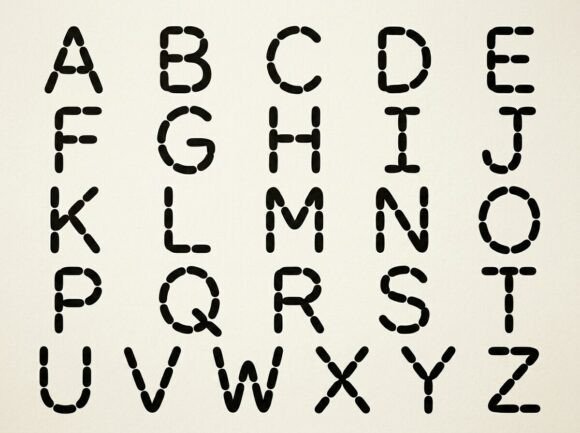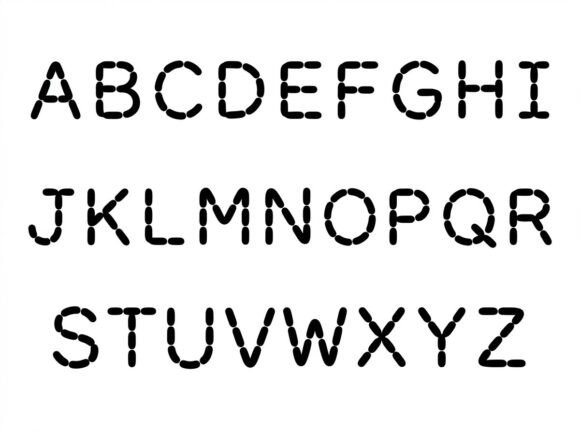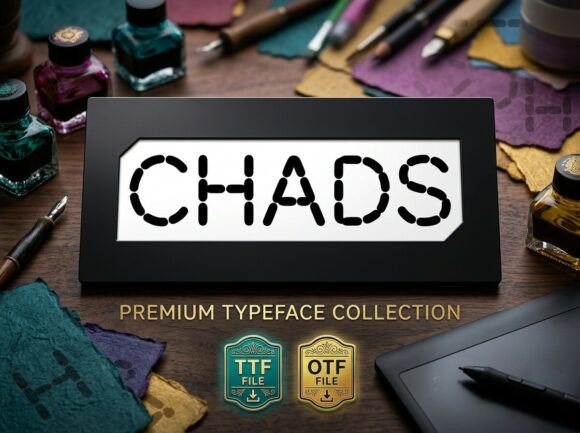
Introduction to Chads Font Font
Fonts play a crucial role in design, and the Chads Font font is a typeface that brings both character and versatility to any project. Whether you’re working on a branding project, a website, or a print design, the Chads Font font offers a unique style that can elevate your work.
Command attention with the glowing energy of Chads, a premium digital typeface that bridges the gap between retro computing and modern minimalism.
This high-contrast font features bold, rounded outlines constructed from a series of illuminated capsules, mimicking the look of vintage LED displays and early digital interfaces Its heavy visual weight and rhythmic geometric structure radiate a sense of technological innovation and urban sophistication.
Key Features of Chads Font Font
Why Choose Chads Font Font?
The Chads Font font is more than just a typeface – it’s a design tool that helps you communicate your message with style and clarity. Its unique character set and versatile design make it suitable for a wide range of applications, from elegant invitations to bold headlines.
With its carefully crafted letterforms and balanced proportions, the Chads Font font ensures readability and visual appeal across all mediums.
What makes Chads Font font special?
The Chads Font font stands out with its unique design, exceptional readability, and versatility across various design applications.